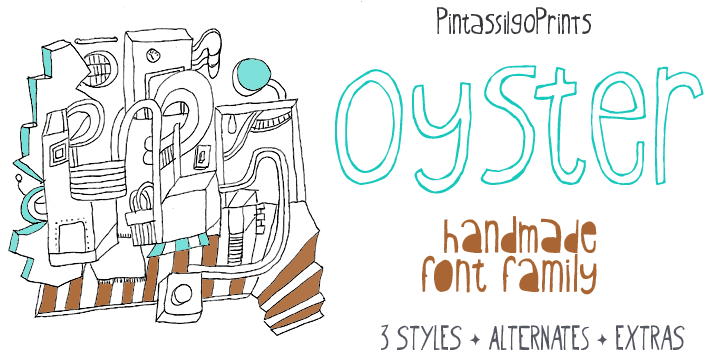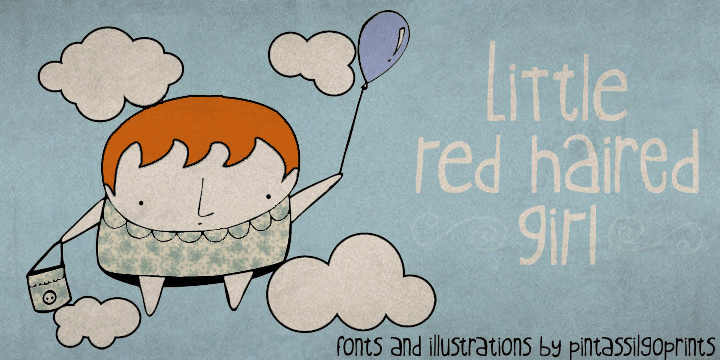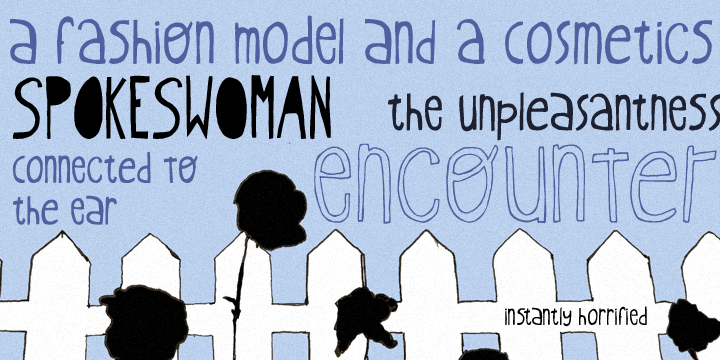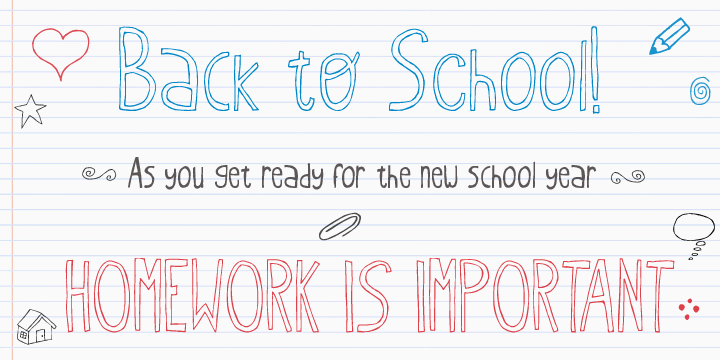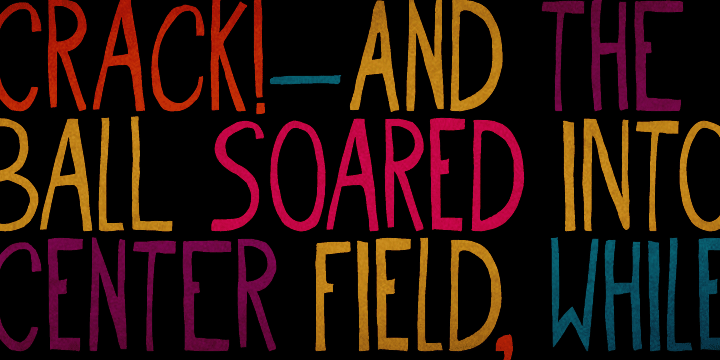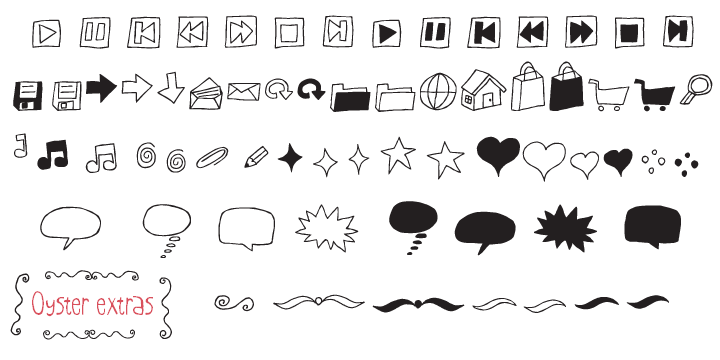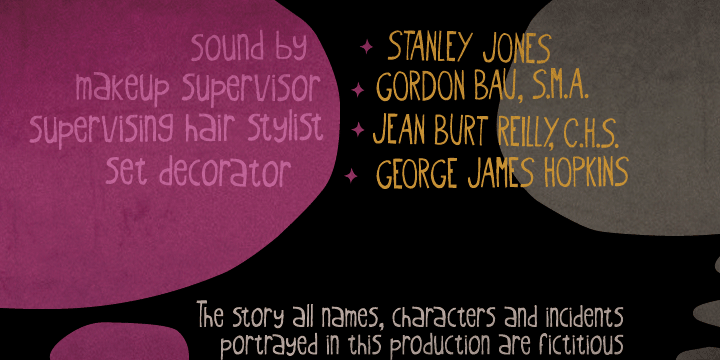
Oyster Font Family Free Download
About Oyster Font Family The Oyster family is a useful toolkit for hand-draw moods. It’s a super casual and somewhat messy font that comes in two flavors: regular and outline, or rather, truly-hand-drawn-outline. Both styles have two choices for each upper- and lower-case letter, for that additional handmade feel.
The OpenType contextual alternates feature instantly get these alternate glyphs to dance. The regular style also brings a set of glyphs with filled counters in a stylistic alternates pack, for a little twist now and then. And finally, the family has also a picture font with useful icons and ornaments. Handmadify your message and give Oyster a try! Designers: Erica Jung, Ricardo MarcinPublisher: PintassilgoPrintsFoundry: PintassilgoPrintsDesign Owner: PintassilgoPrintsMyFonts debut: Feb 16, 2010 Oyster